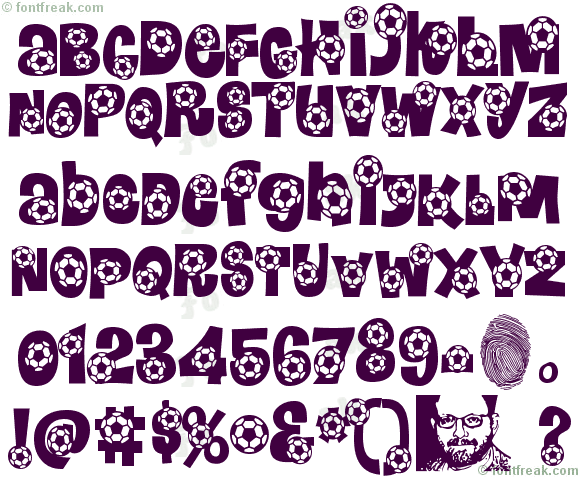
Bend It
About Bend It
Bend It is a playful display font designed by Harold Lohner, characterized by its unique and whimsical style. This font falls into the decorative category, making it an ideal choice for creative projects that aim to capture attention. The visual characteristics of Bend It are striking, featuring rounded, bold letters adorned with charming decorative elements that evoke the imagery of soccer balls. The stroke weight is consistent, providing a cohesive look, while the spacing between letters is balanced, ensuring legibility without sacrificing its playful aesthetic.
This font is particularly well-suited for a variety of specific use cases. It can be a standout choice for sports-themed event invitations, adding a fun twist to birthday parties or tournaments. Additionally, it works wonderfully for children's book covers, where its playful nature can resonate with young readers. Bend It can also enhance marketing materials for local sports clubs, helping to create an engaging brand identity. Furthermore, its unique style makes it an excellent option for merchandise designs, such as T-shirts or posters that celebrate an athletic spirit.
What truly sets Bend It apart is its ability to combine fun and functionality. It captures the essence of movement and excitement, making it a versatile choice for various creative endeavors. Whether for personal or professional projects, Bend It ensures that your designs stand out with a spirited flair.